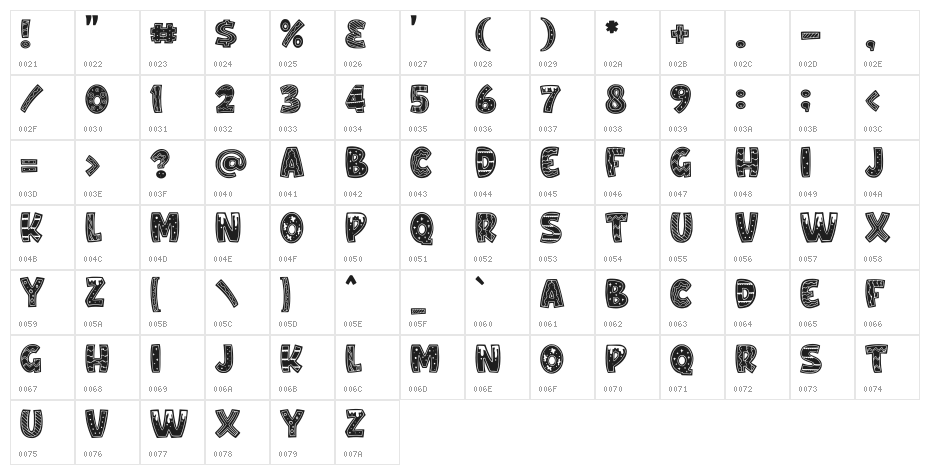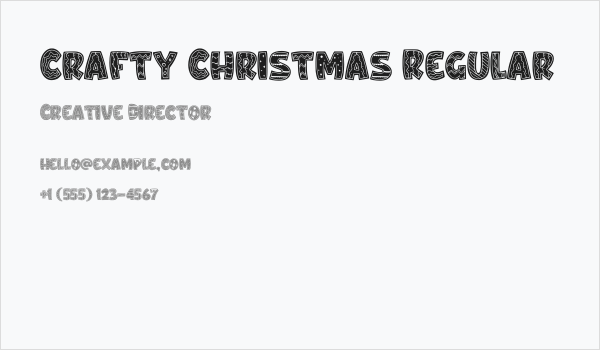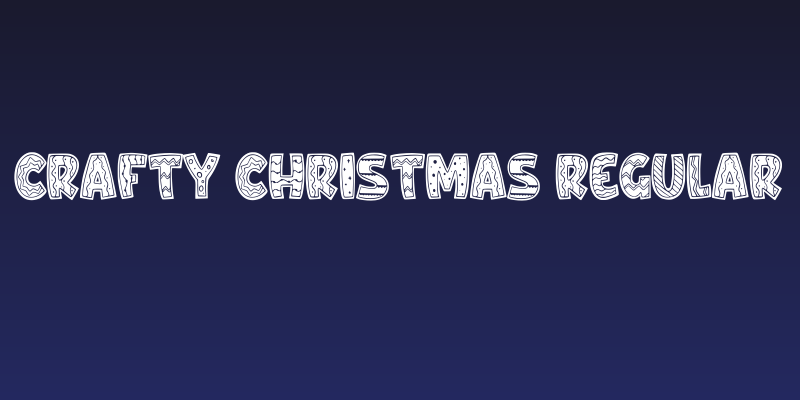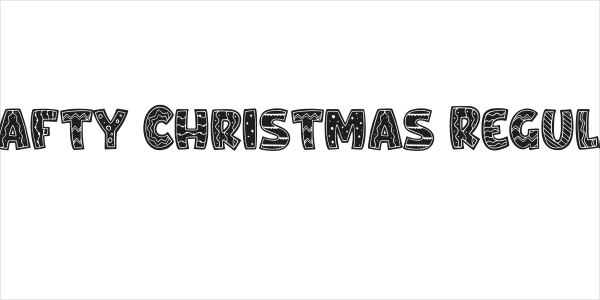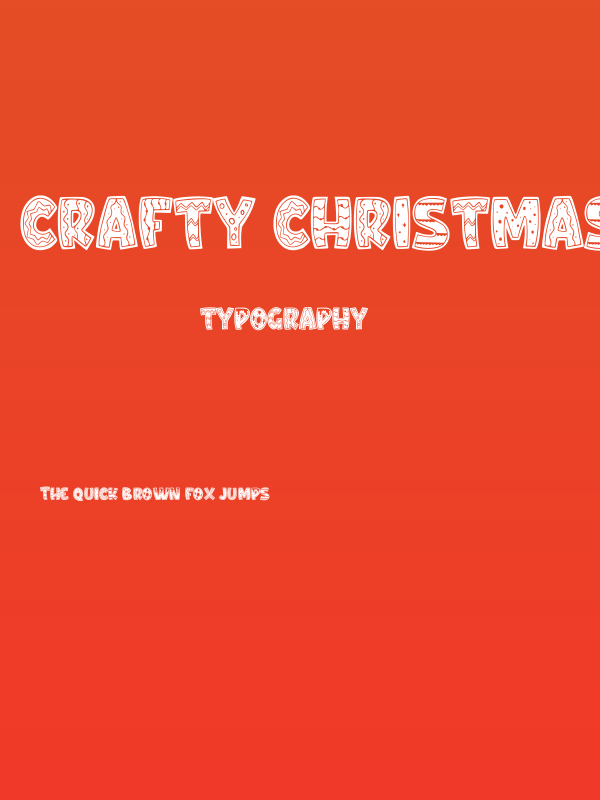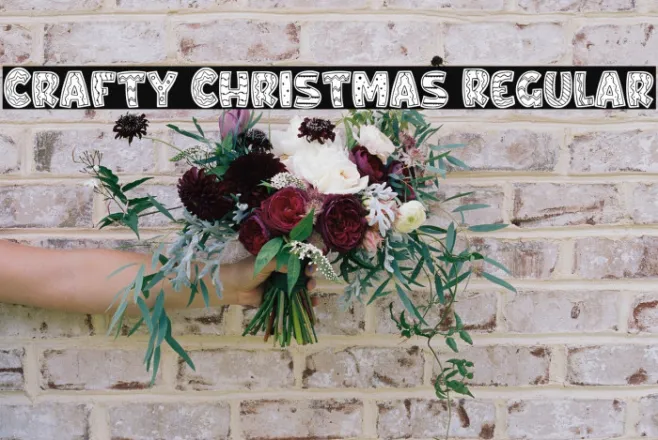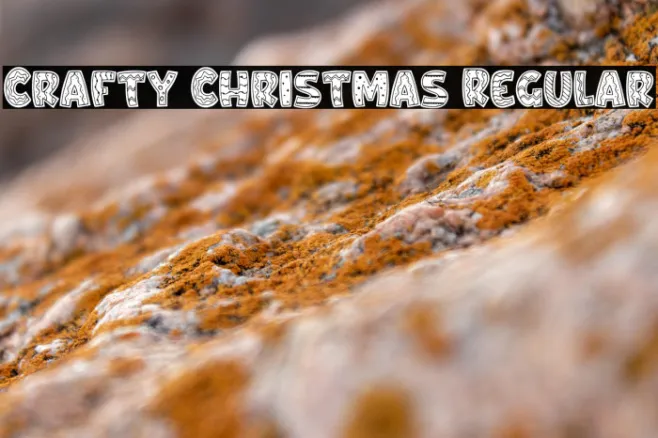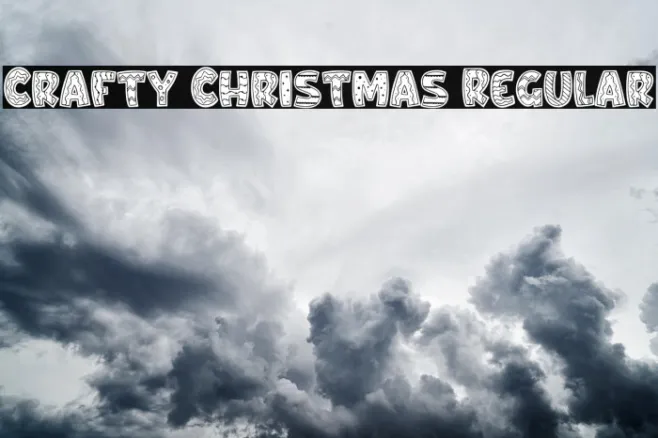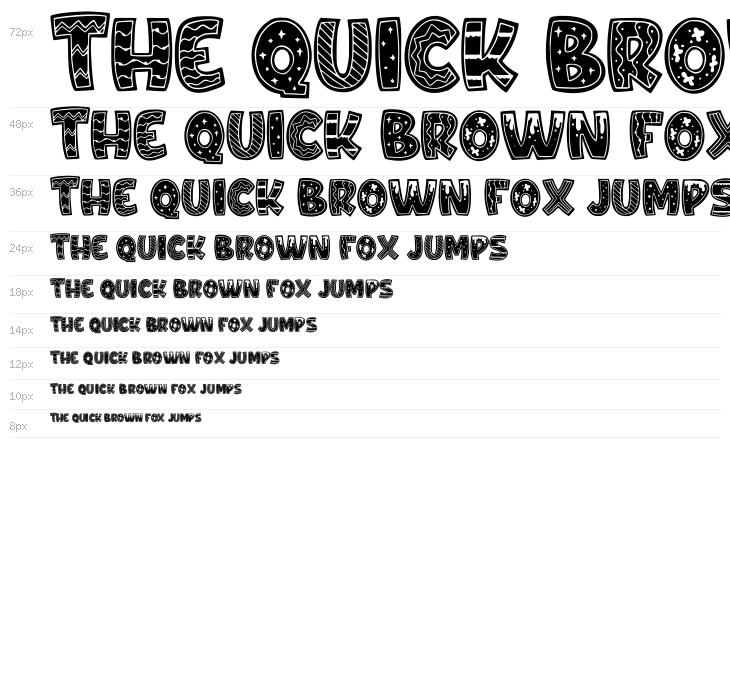
Crafty Christmas Regular Font
Crafty Christmas Regular Description
This font features a playful and festive design, perfect for holiday-themed projects. Each character is adorned with decorative elements such as dots, stripes, and stars, giving it a handcrafted appearance. The bold and chunky letterforms are filled with intricate patterns, evoking a sense of whimsy and joy. The font maintains a consistent style across uppercase, lowercase, numbers, and special characters, ensuring a cohesive look. Its unique and eye-catching design makes it ideal for capturing attention and conveying a cheerful, celebratory mood.